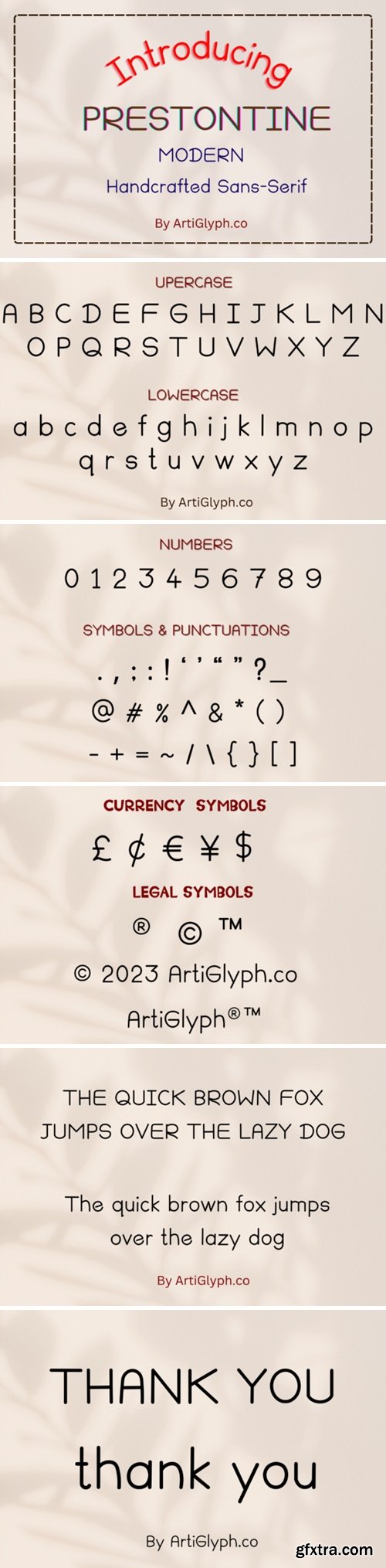
Prestontine is a modern cute handwritten font with a fun and quirky personality. Its irregular and playful letterforms create a sense of whimsy and individuality, making it perfect for designs that require a touch of uniqueness. Its natural, handwritten style adds a charming and personal feel to any project.